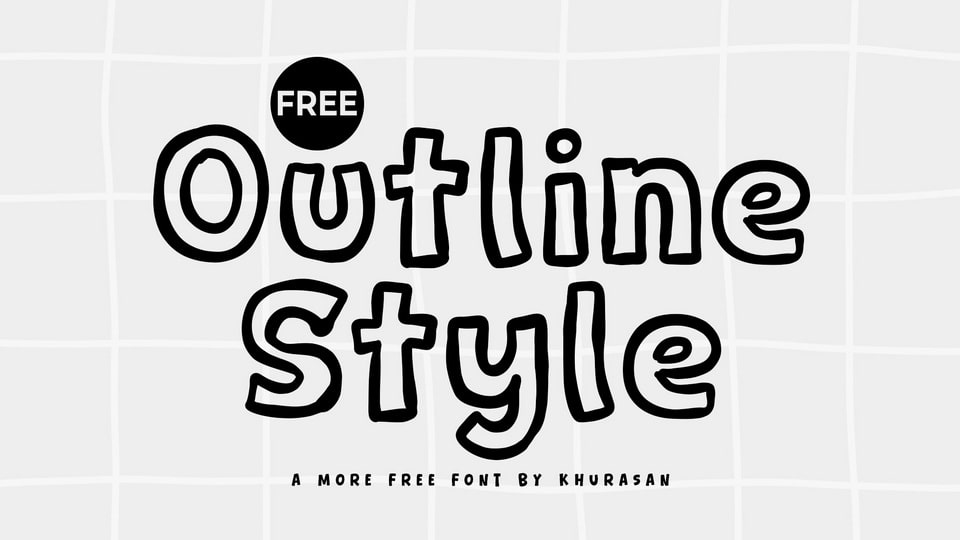
Download Outline Style font, a cheerful and quirky display typeface that combines playful contours with bold, outlined strokes. Each letter feels spontaneous and full of movement, giving your text an animated, hand-crafted vibe.